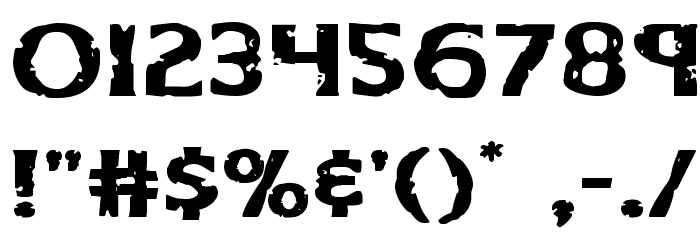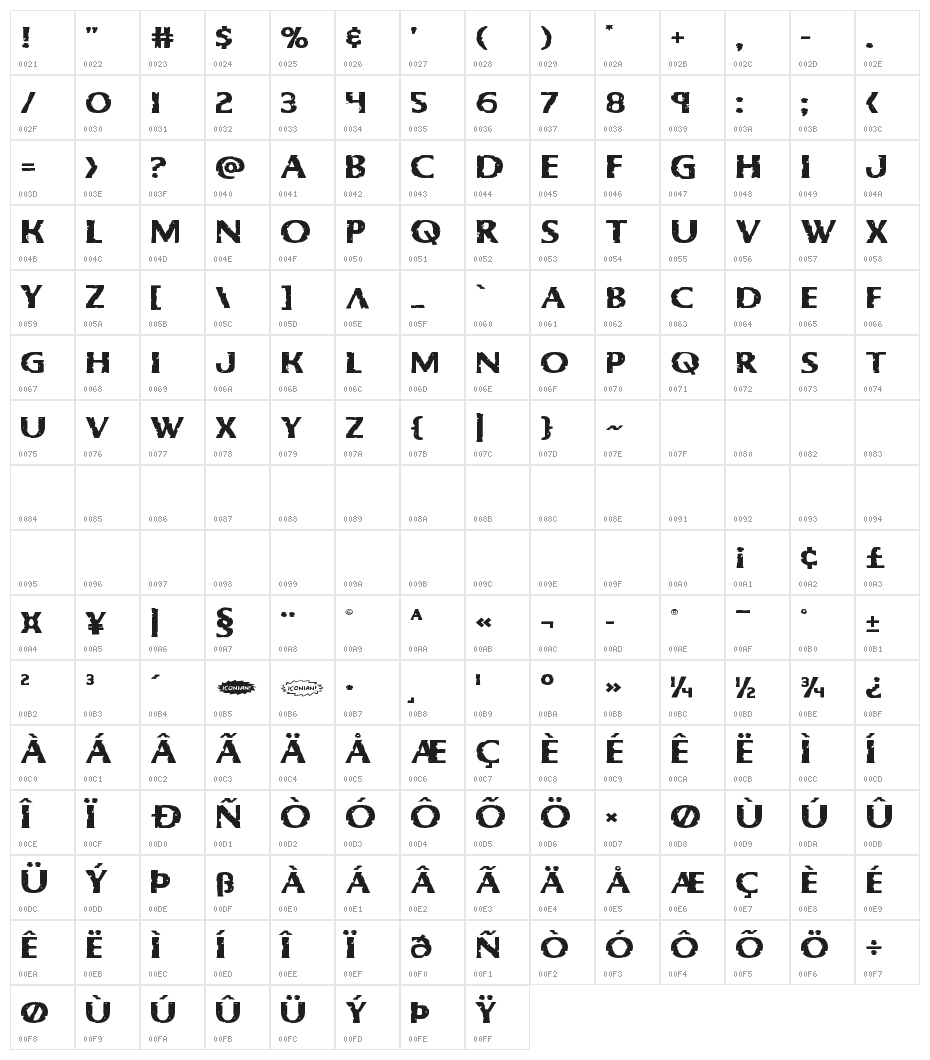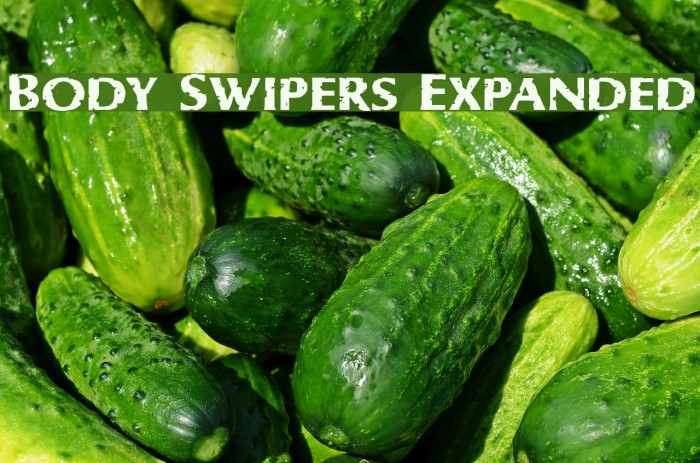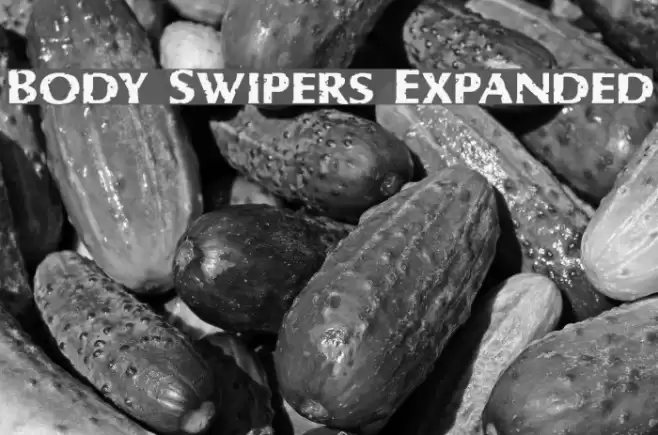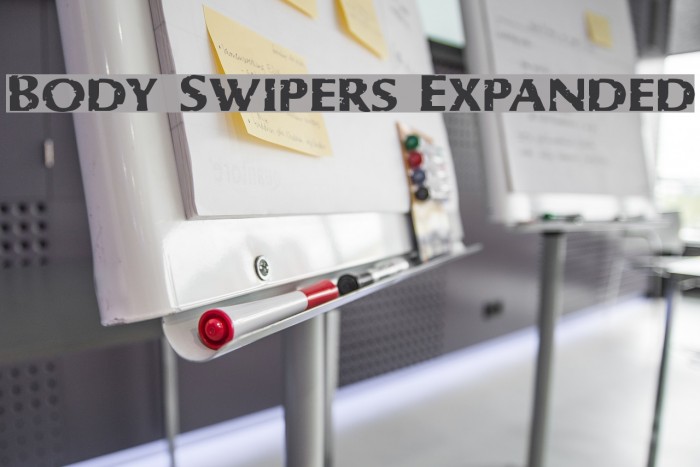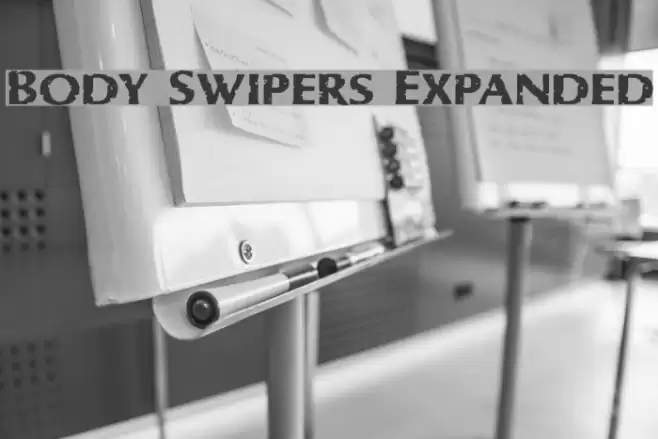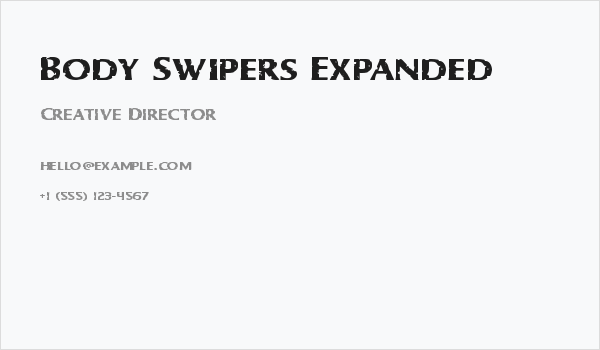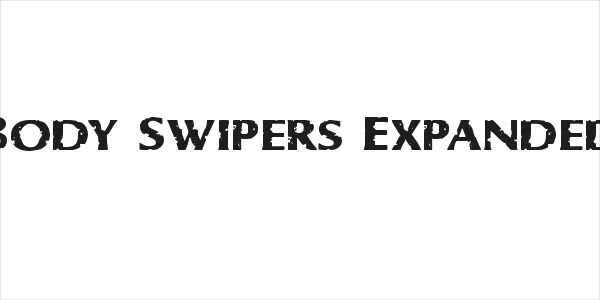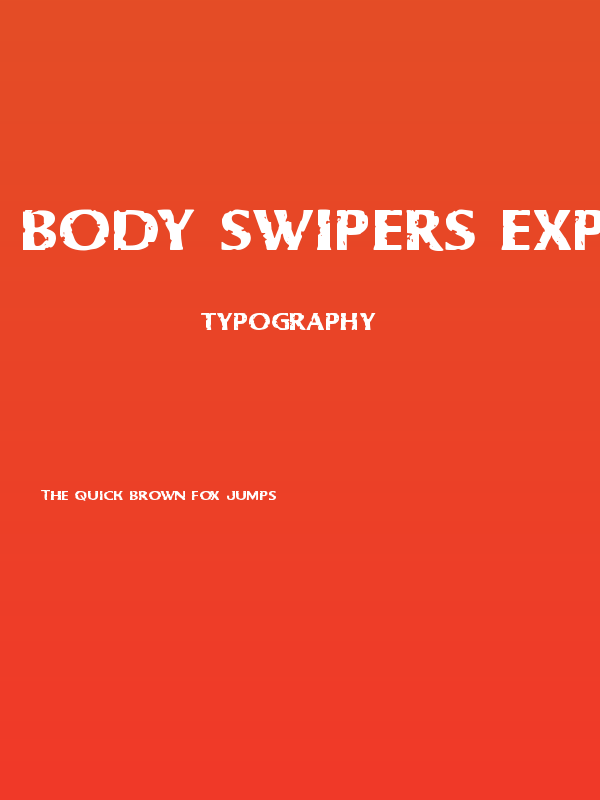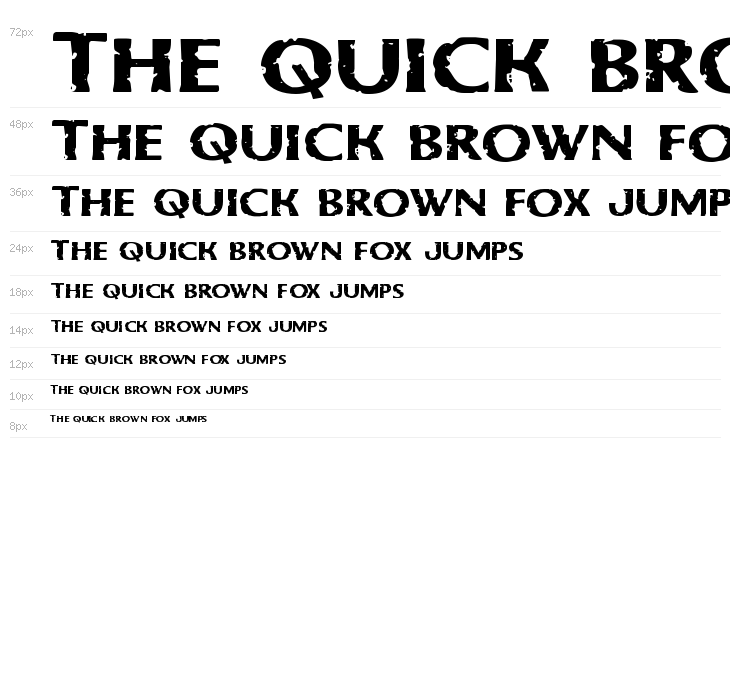
Body Swipers Expanded Font
Body Swipers Expanded Description
This font features a bold and rugged design with a distressed, grunge-like texture. The characters are heavily stylized, with irregular edges and a worn appearance that gives them a unique, vintage feel. The uppercase letters are prominent and commanding, while the numerals and special characters maintain the same distressed aesthetic. This font is ideal for projects that require a bold statement or an edgy, urban look. Its distinctive style makes it suitable for creative designs that aim to capture attention and convey a sense of raw energy.
| Overall Style | Vintage, Grunge |
| Proposed Projects | Ideal for posters, album covers, branding for edgy products, and any design that requires a bold, attention-grabbing font. |